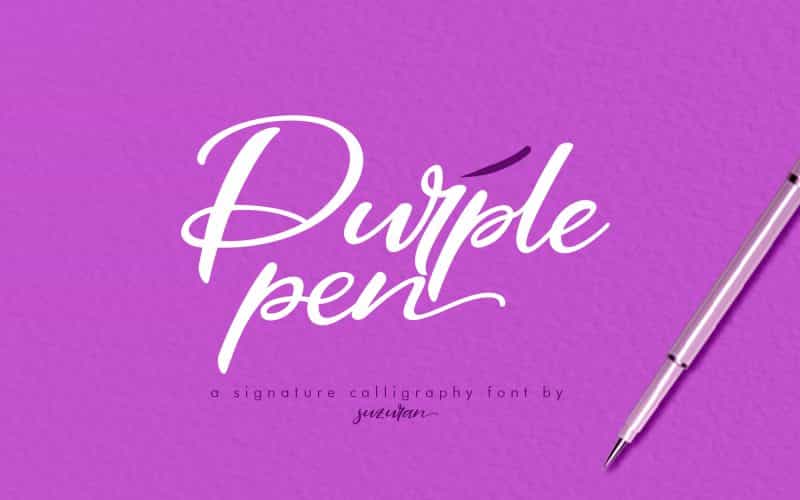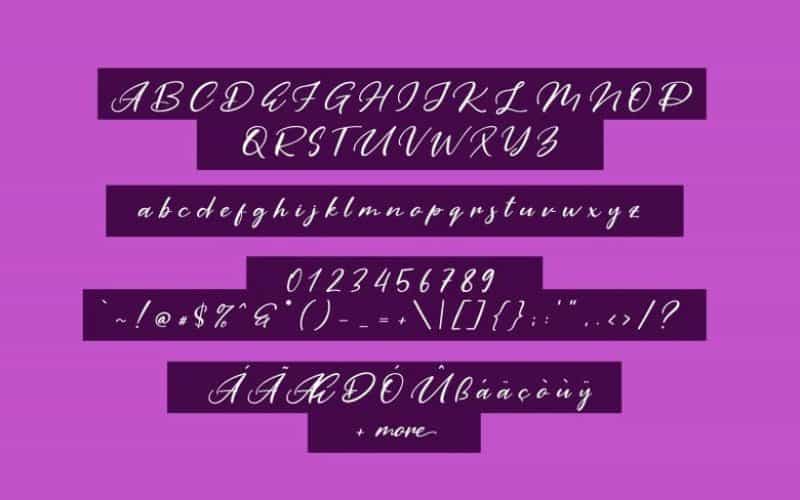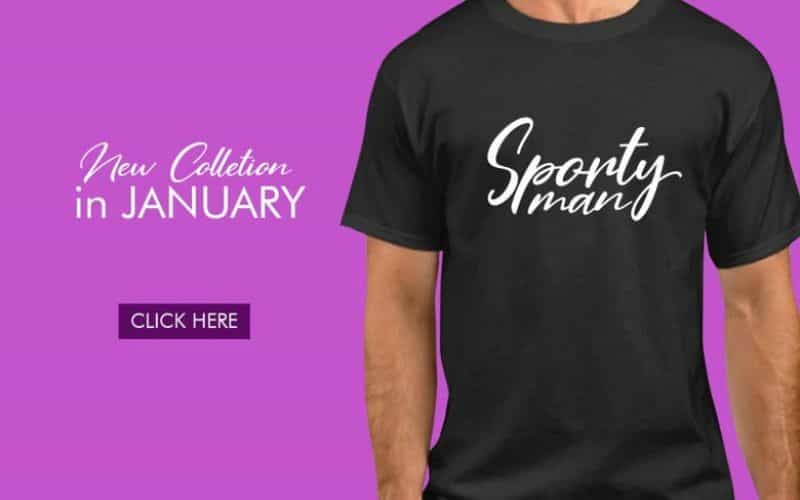
Discover Purple Pen Script Font, part of the Calligraphy collection—a versatile and unique font perfect for adding a personal touch to your projects. Download it for free and enjoy crafting designs with style, from invitations to social media posts. This font is available exclusively for personal use, giving you the freedom to create without limits. Unlock your creativity with Purple Pen Script Font today!
Introducing Purple Pen script, is a very fresh and unique style, handmade + BONUS font, Night in Kansas for your project. Purple Pen script is perfectly suited to logo, the stationery, poster, apparel, branding, wedding invitation, card, tagline, layout design, and much more!!!